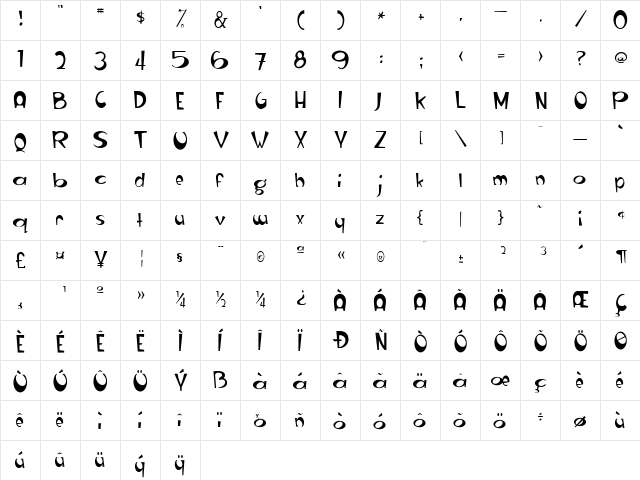
RanchoRound Regular
Design Context for RanchoRound Typeface
RanchoRound softens its letterforms with rounded terminals, giving it an approachable, friendly quality that works well in consumer-facing and digital contexts.
Well-suited to UI design, mobile interfaces, and any brand that wants approachability without sacrificing clarity.
Font Pairing: Pairs well with a rounded or humanist sans for body copy, maintaining the friendly tone without relying on RanchoRound to carry extended reading.
Pro Tip: Use RanchoRound for UI elements, app interfaces, and anywhere a friendly, approachable tone needs to be maintained without sacrificing clarity.